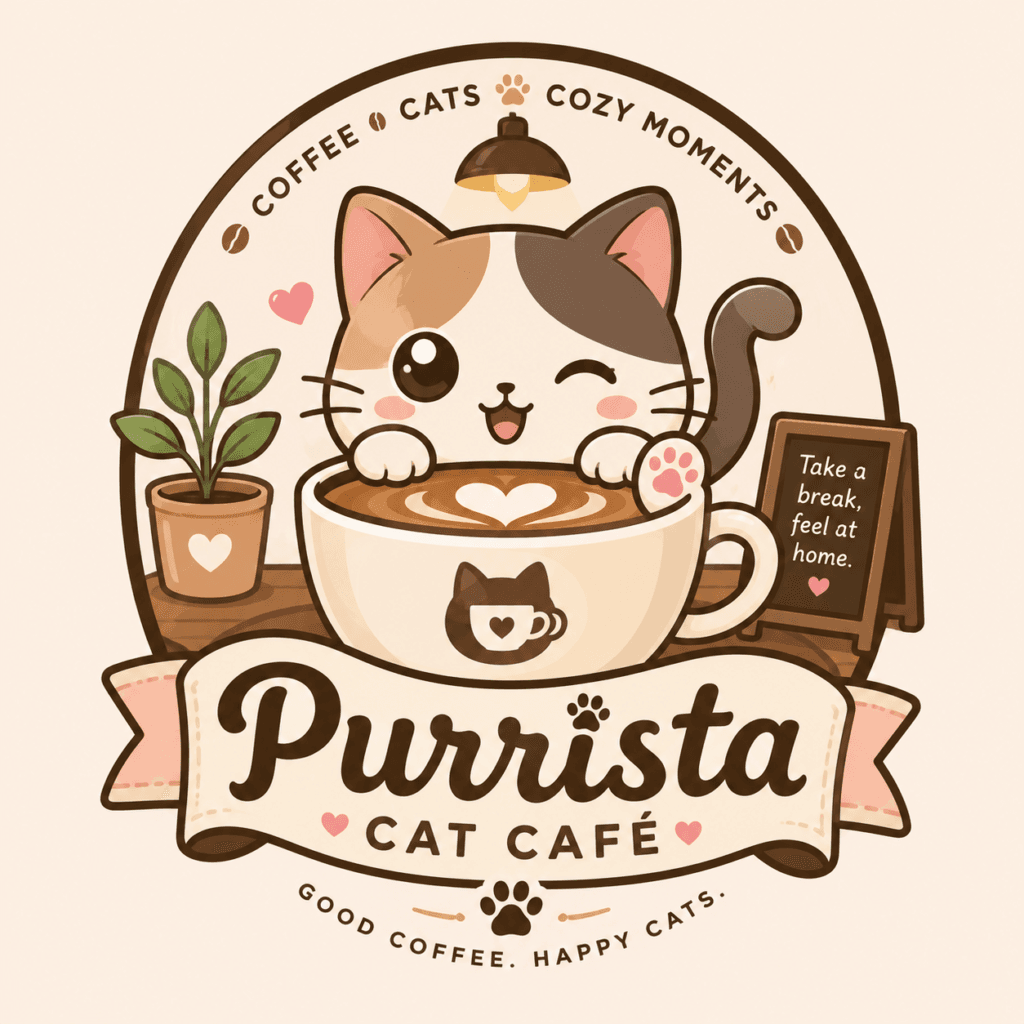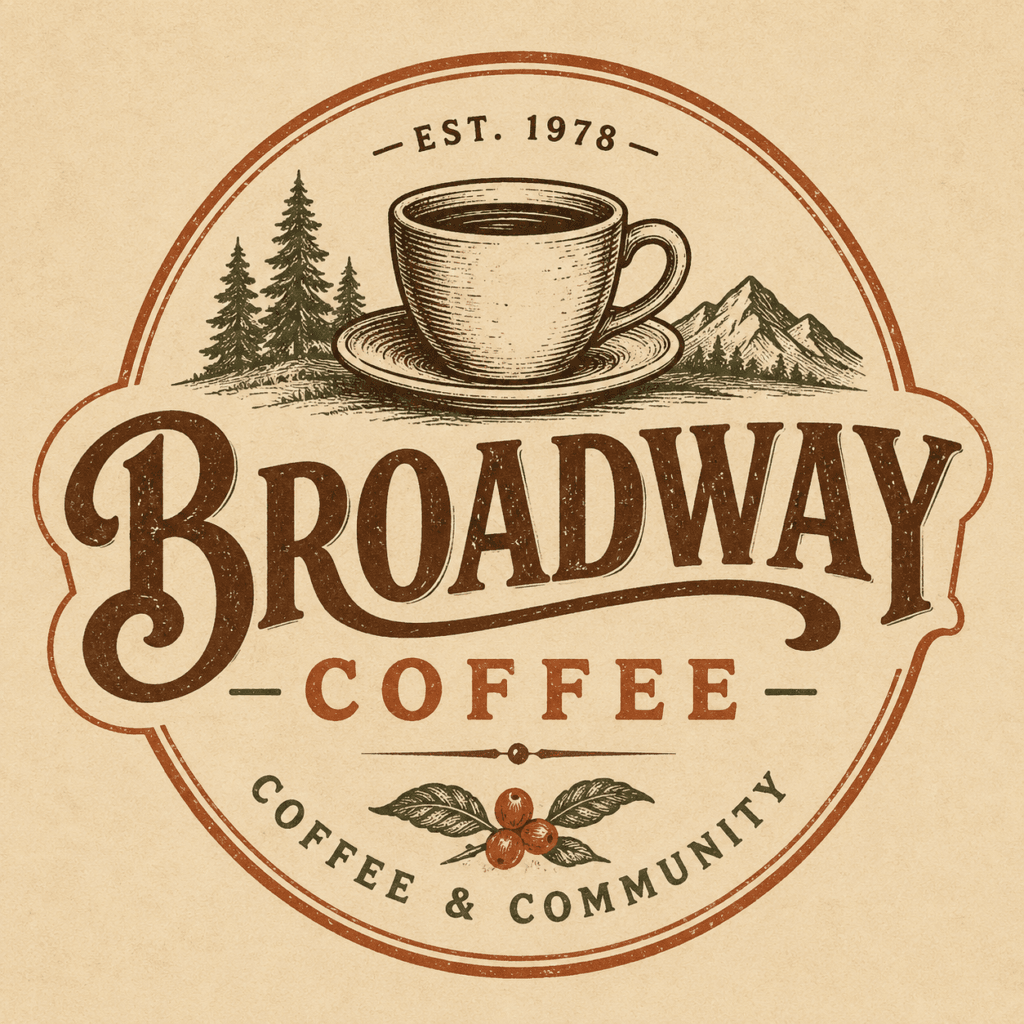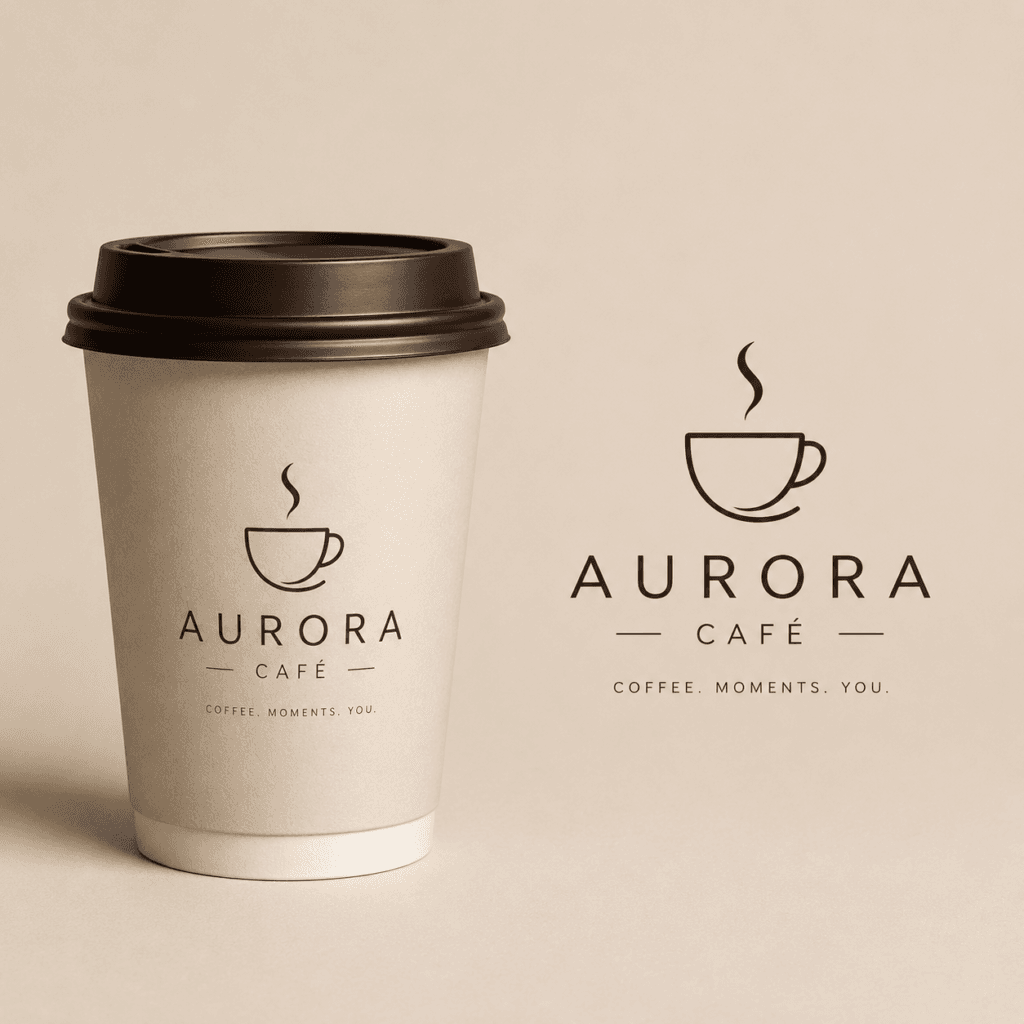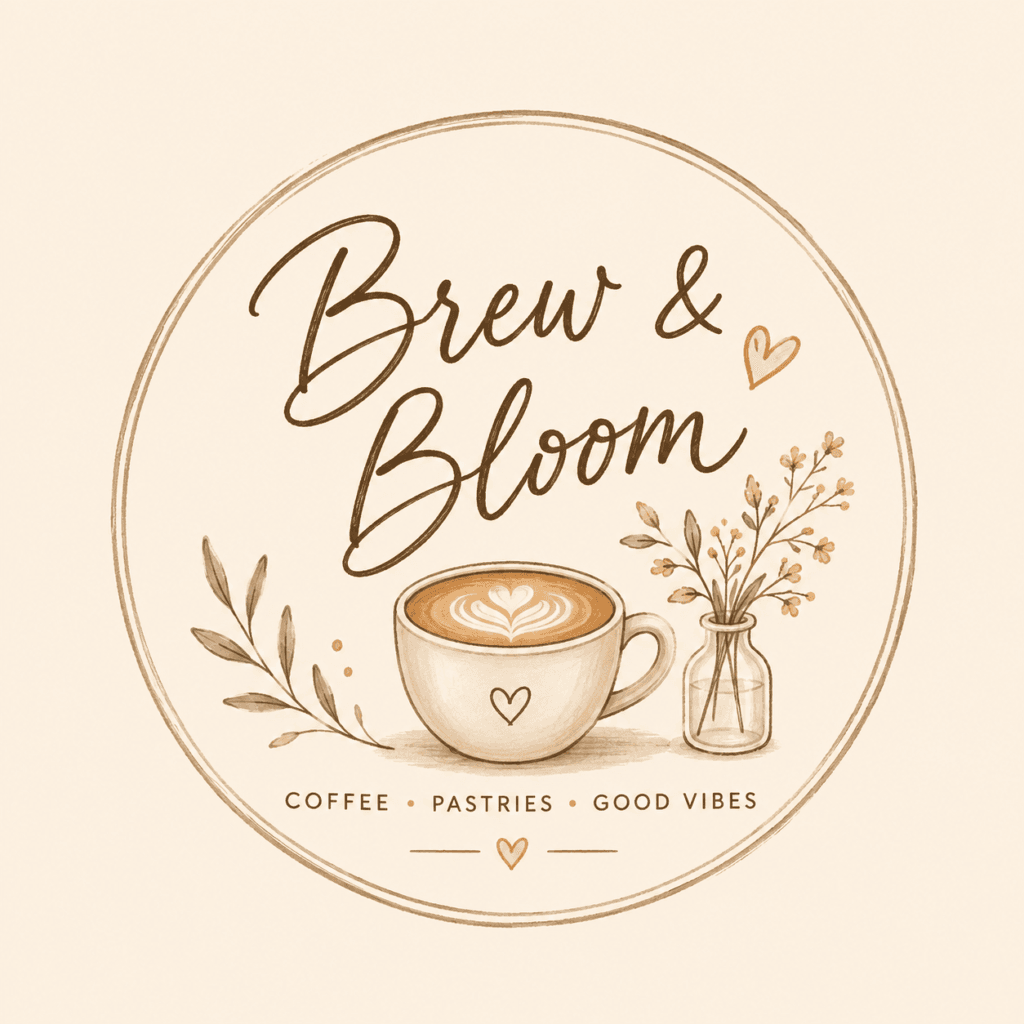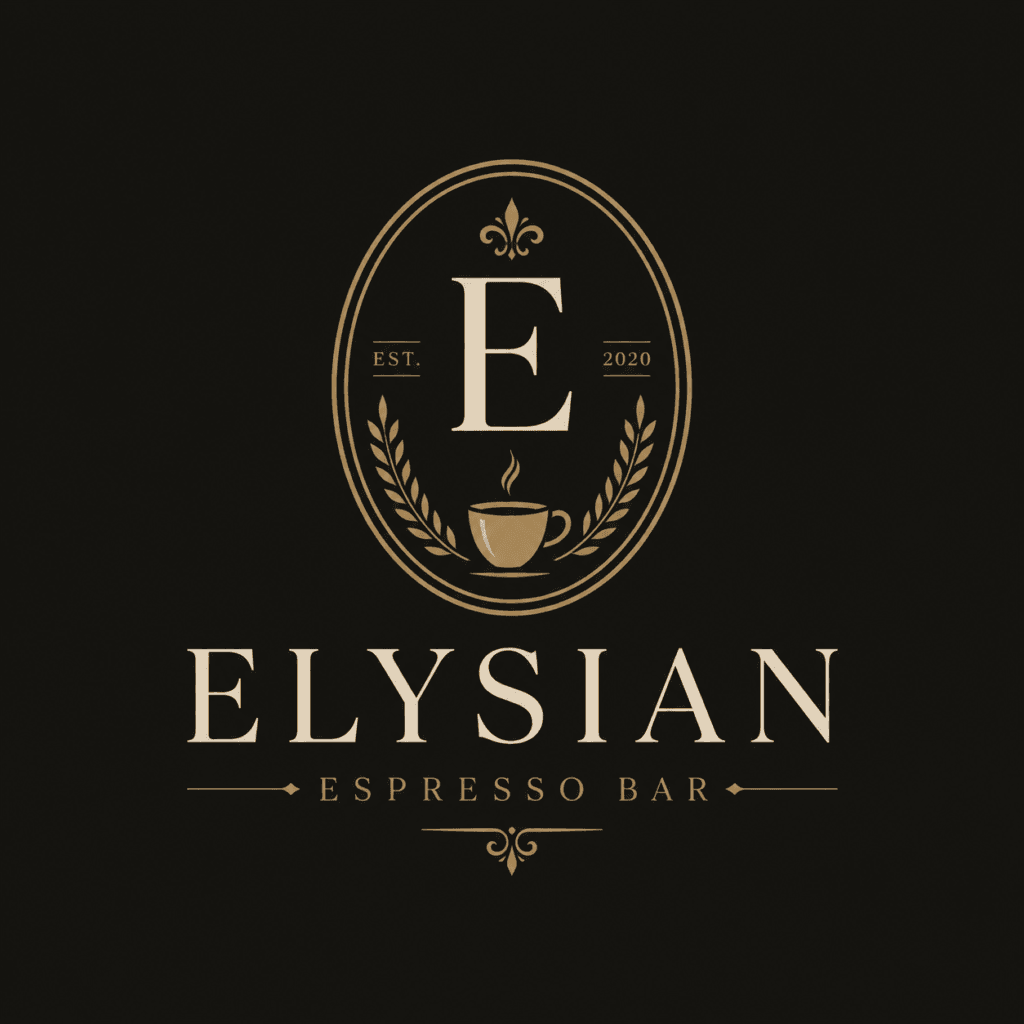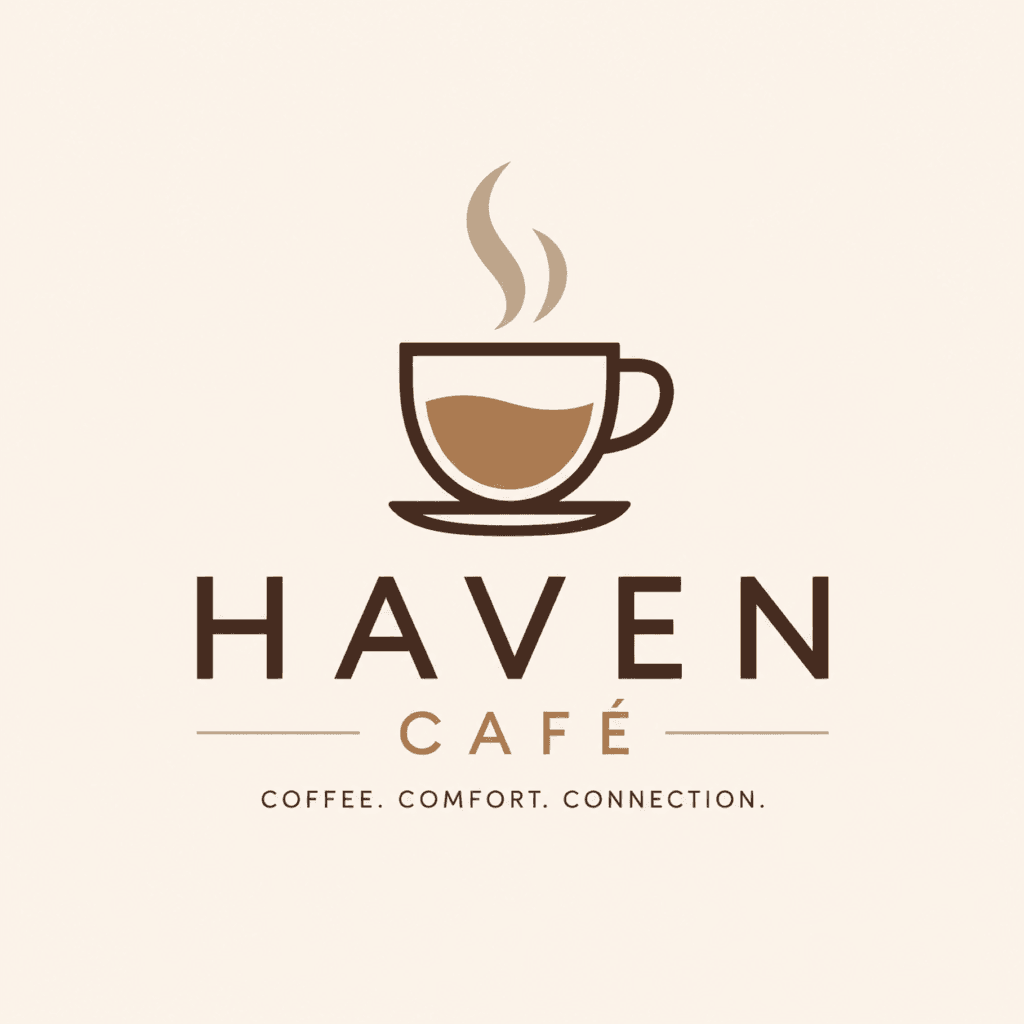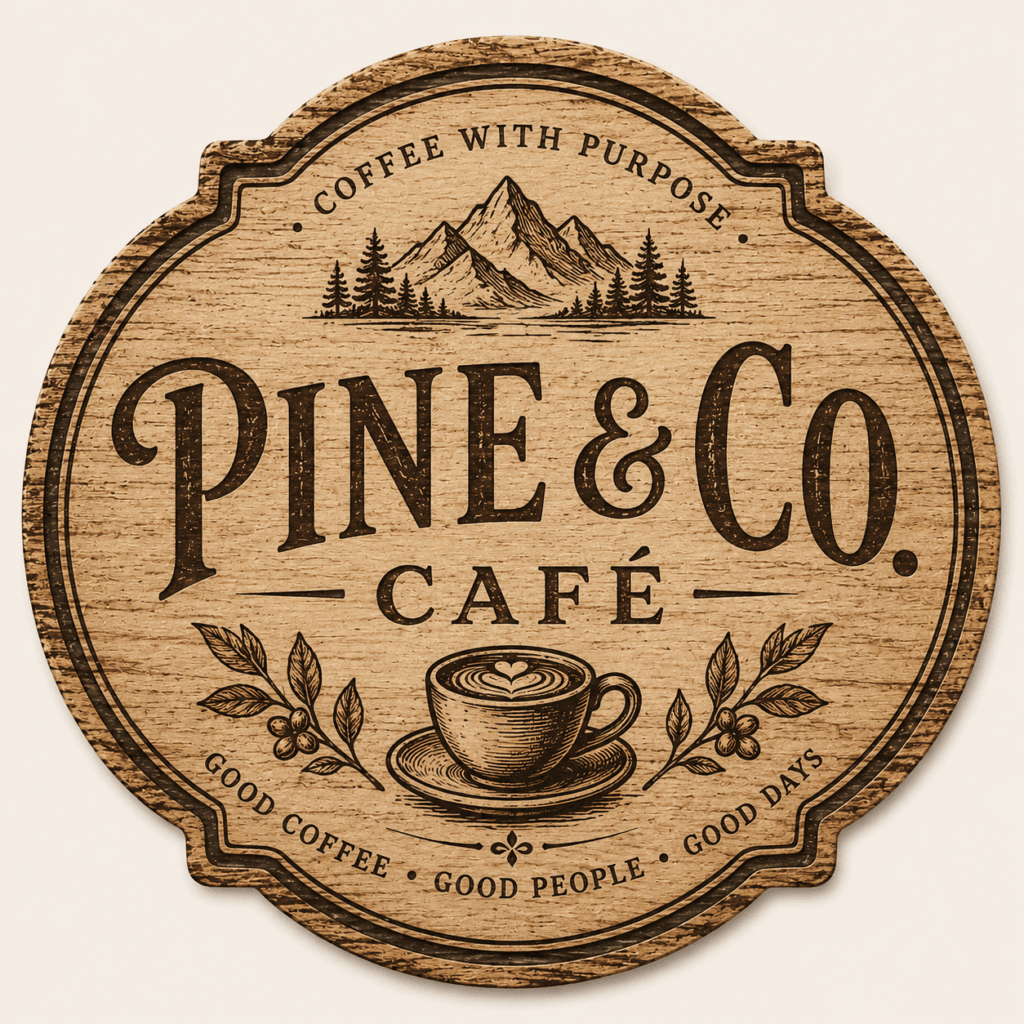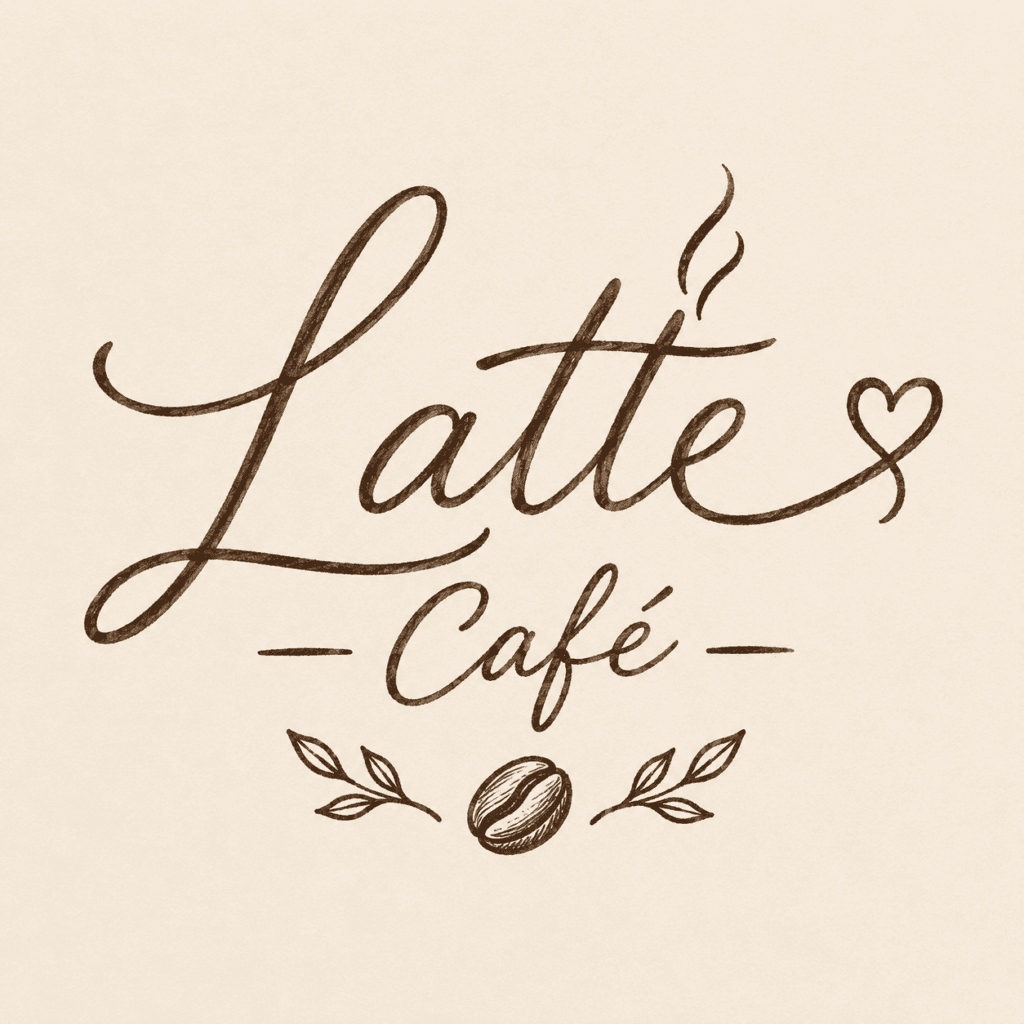
Creating strong café branding starts with the right visual identity, and using cafe logo AI prompts can help designers generate creative ideas faster. From cozy coffee shops to modern espresso bars, cafe logo AI prompts allow designers and business owners to explore multiple logo directions with different styles and aesthetics. Many creators now use cafe logo AI prompts to improve workflow efficiency, experiment with typography, and build memorable branding systems. By understanding how to write effective cafe logo AI prompts, designers can create logos that feel unique, professional, and aligned with café identity.
In this guide, we explore the best ways to use cafe logo AI prompts for better branding results.
Why Cafe Logo AI Prompts Matter for Branding
Strong AI prompts for cafe logos improve creative exploration and branding consistency.
- Faster logo ideation
- Better visual experimentation
- More branding consistency
- Unique café identity development
Using effective AI prompts for cafe logos helps designers create memorable coffee shop branding.
Cafe Logo AI Prompts for Minimal and Modern Café Branding
Minimal branding remains popular in AI prompts for cafe logos.
1. Minimal Café Logo Prompt
“Create a minimalist café logo with clean sans serif typography, warm neutral colors, and modern coffee icon.”
2. Modern Coffee Brand Prompt
“Design a modern coffee shop logo with geometric layout, soft brown palette, and elegant typography.”
3. Simple Monoline Prompt
“Create a monoline café logo with continuous line coffee cup illustration and minimalist style.”
Example Minimal Café Logo.
These AI prompts for cafe logos create clean and modern branding.
Cafe Logo AI Prompts for Vintage and Retro Coffee Shops
Retro aesthetics work well for café branding.
1. Vintage Diner Prompt
“Design a retro café logo with badge emblem, vintage serif typography, and distressed texture.”
2. Classic Coffee House Prompt
“Create a vintage coffee shop logo with warm earthy colors, retro typography, and handcrafted illustration.”
3. School Café Prompt
“Design a nostalgic café logo inspired by classic European coffee houses with elegant vintage lettering.”
Example Classic Coffee House Logo.
These AI prompts for cafe logos help build timeless identity.
Cafe Logo AI Prompts for Cozy and Aesthetic Café Brands
Aesthetic branding is trending in café culture.
1. Cozy Café Prompt
“Create a cozy café logo with handwritten script font, warm beige tones, and soft illustration style.”
2. Pinterest Style Café Prompt
“Design an aesthetic coffee shop logo with minimalist composition, muted colors, and elegant typography.”
3. Pastel Café Prompt
“Create a soft pastel café logo with playful coffee cup illustration and clean layout.”
Example Cozy Café Logo.
These AI prompts for cafe logos support aesthetic branding.
Cafe Logo AI Prompts for Luxury and Premium Coffee Branding
Premium cafés need refined identity.
1. Luxury Coffee Logo Prompt
“Design a luxury café logo with gold typography, black background, and premium minimalist composition.”
2. Elegant Espresso Bar Prompt
“Create an elegant espresso bar logo with serif typography and sophisticated emblem style.”
3. Premium Branding Prompt
“Design a high-end coffee brand logo with clean layout, premium textures, and luxury visual identity.”
Example Elegant Espresso Bar Logo.
These AI prompts for cafe logos improve premium branding.
Cafe Logo AI Prompts for Handmade and Artisan Coffee Brands
Artisan cafés benefit from handcrafted aesthetics.
1. Handcrafted Café Prompt
“Create an artisan coffee logo with hand-drawn coffee beans, rustic textures, and vintage typography.”
2. Organic Coffee Shop Prompt
“Design a natural coffee brand logo with earthy tones, botanical elements, and handmade feel.”
3. Rustic Café Prompt
“Create a rustic café logo with wood texture inspiration, classic serif fonts, and handcrafted badge design.”
Example Rustic Café Logo.
These AI prompts for cafe logos create authentic branding.
Cafe Logo AI Prompts for Typography and Lettering Design
Typography shapes café identity.
1. Bold Typography Prompt
“Design a bold café wordmark logo with oversized typography and modern composition.”
2. Script Logo Prompt
“Create a handwritten café logo with elegant script lettering and coffee-inspired details.”
3. Retro Typography Prompt
“Design a retro café typography logo inspired by vintage diner signage.”
Example Script Logo.
These AI prompts for cafe logos strengthen visual identity.
Cafe Logo AI Prompts for Mascot and Illustration Logos
Illustrated logos add personality.
1. Coffee Mascot Prompt
“Create a cute coffee mascot logo with expressive face, playful style, and café branding.”
2. Cat Café Prompt
“Design a cat café logo with kawaii illustration style and cozy visual identity.”
Final Thoughts on Cafe Logo AI Prompts
Using cafe logo AI prompts is one of the fastest ways to explore creative branding ideas for coffee businesses. By combining strong prompt writing with design fundamentals, designers can create logos that feel professional, memorable, and visually unique. The key is to stay specific, experiment with styles, and refine concepts carefully.